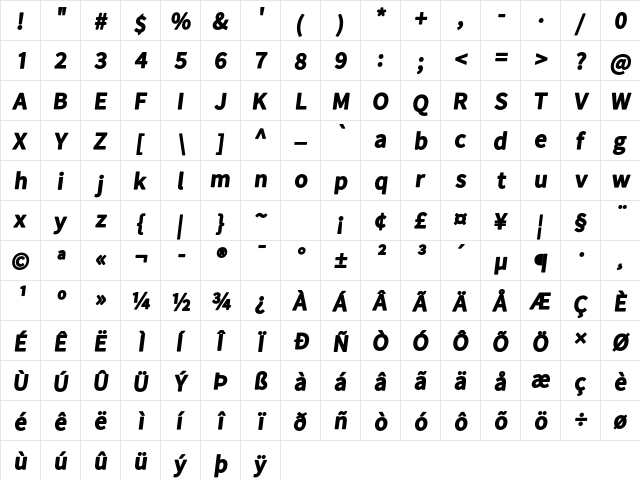
Falling Sky BlkObl
| Designer | Paul D. Hunt |
Design Context for Falling Sky Typeface
Falling Sky is a composed and adaptable typeface that performs quietly and consistently across a wide range of design contexts.
Pro Tip: Use Falling Sky in both headline and body roles to test its range before committing to a single application.